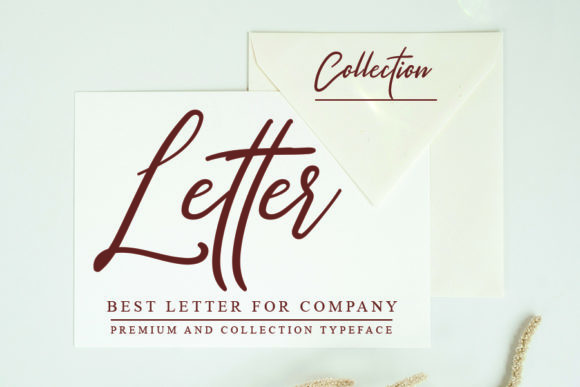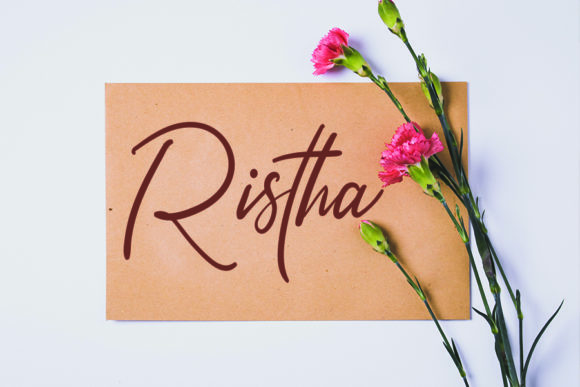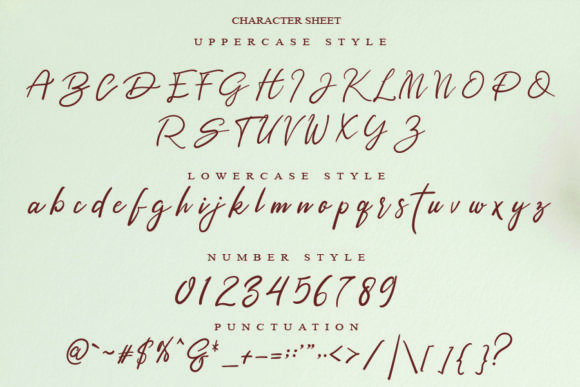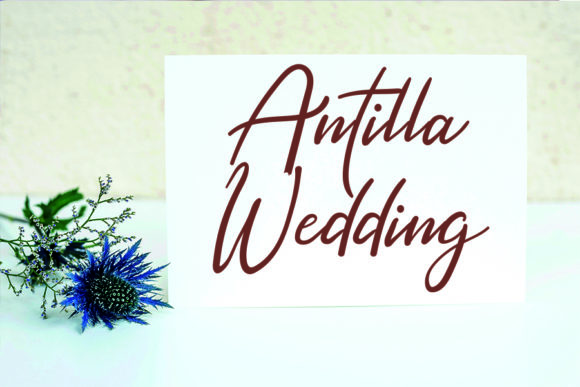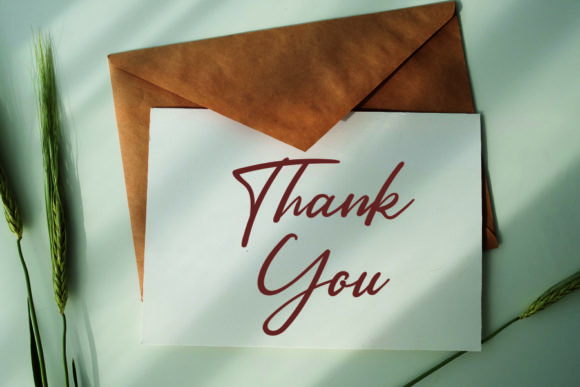
About Straight Font
Introducing “Straight,” a flowing handwritten font that captures the essence of elegance and simplicity. Its captivating allure makes it an ideal choice for a wide range of design projects, infusing a touch of handcrafted sophistication into every creation. Whether you’re working on branding, quotes, invitations, or any other design, “Straight” will captivate your heart with its distinct and timeless charm.
With “Straight,” you have a font that flows with graceful fluidity while maintaining a sense of simplicity. Its authentic handwritten style brings an air of uniqueness and refinement to your designs, creating a visual experience that is both elegant and captivating. Whether you’re crafting clean branding, minimalistic quotes, or engaging invitations, this font adds a layer of beauty that leaves a lasting impression.
The versatility of “Straight” lies in its ability to seamlessly complement various design styles and themes. Its flowing and elegant appeal makes it a dependable choice for all your creative endeavors that seek to convey elegance and simplicity.
Unleash your creativity and witness how “Straight” enhances your designs with its elegant and refined touch. Whether you’re designing sleek logos, creating understated stationery, or producing eye-catching social media graphics, this font will infuse your work with a sense of authenticity and allure that commands attention.
So, embrace the allure of “Straight” and let it become a core element of your design toolkit. Allow its distinct and timeless style to inspire your designs, transforming them into spectacular works that exude elegance and simplicity. Whether you’re an experienced designer or a passionate enthusiast, “Straight” empowers you to create visuals that stand out and make a statement. Let “Straight” be the key to unlocking sophistication and simplicity in your designs, and watch as it elevates your projects to new levels of excellence and distinction!